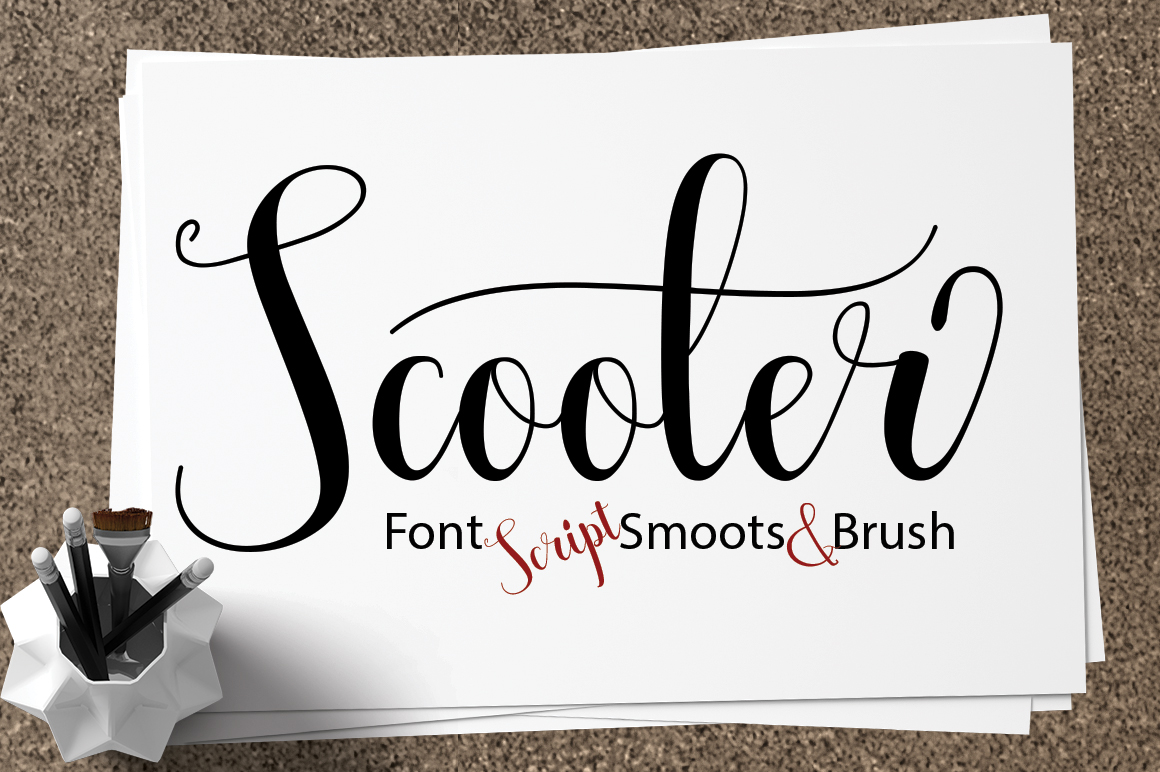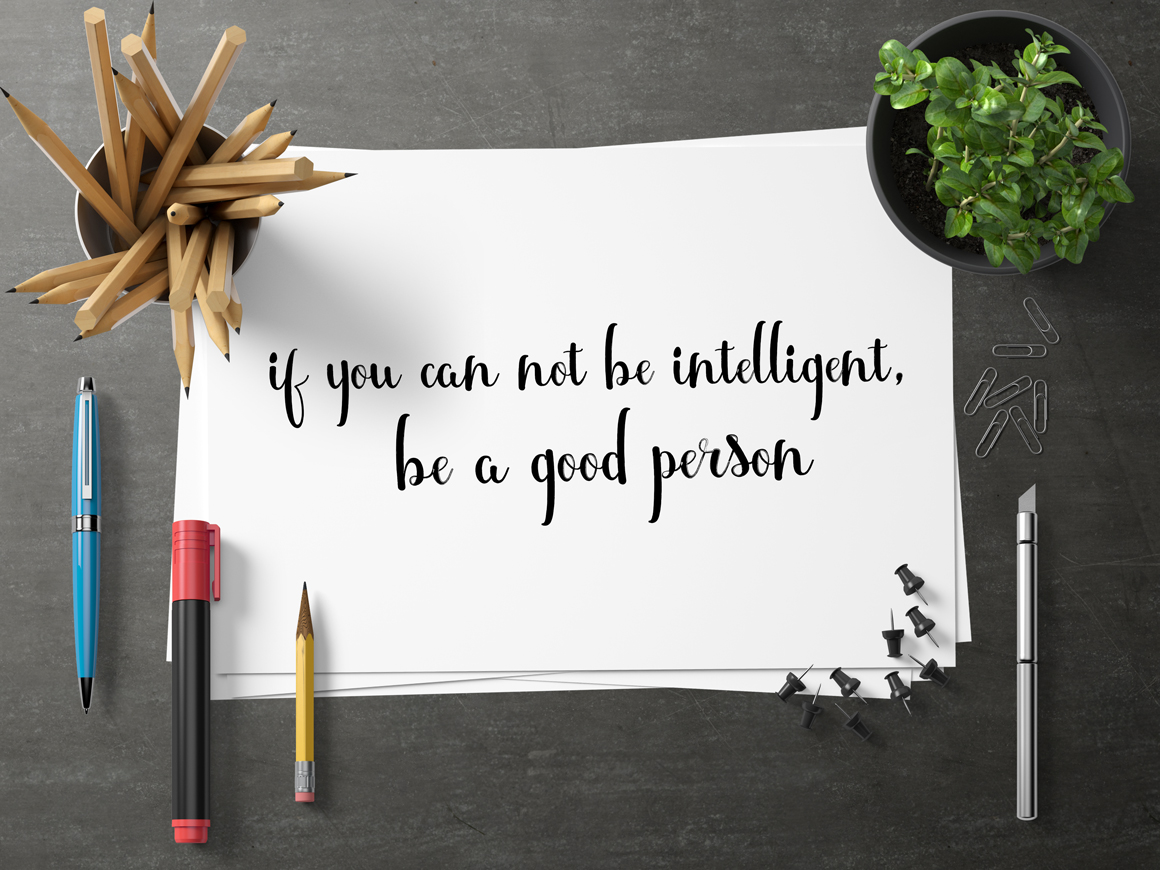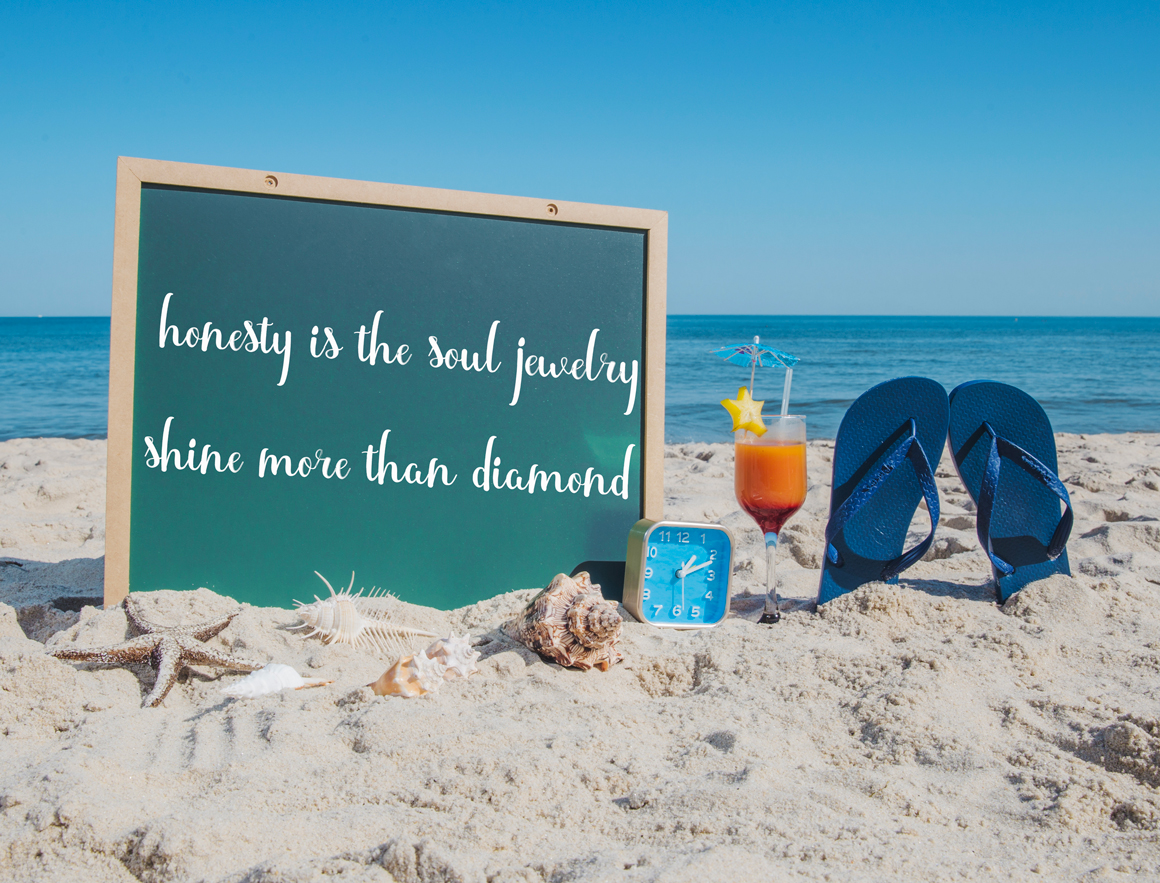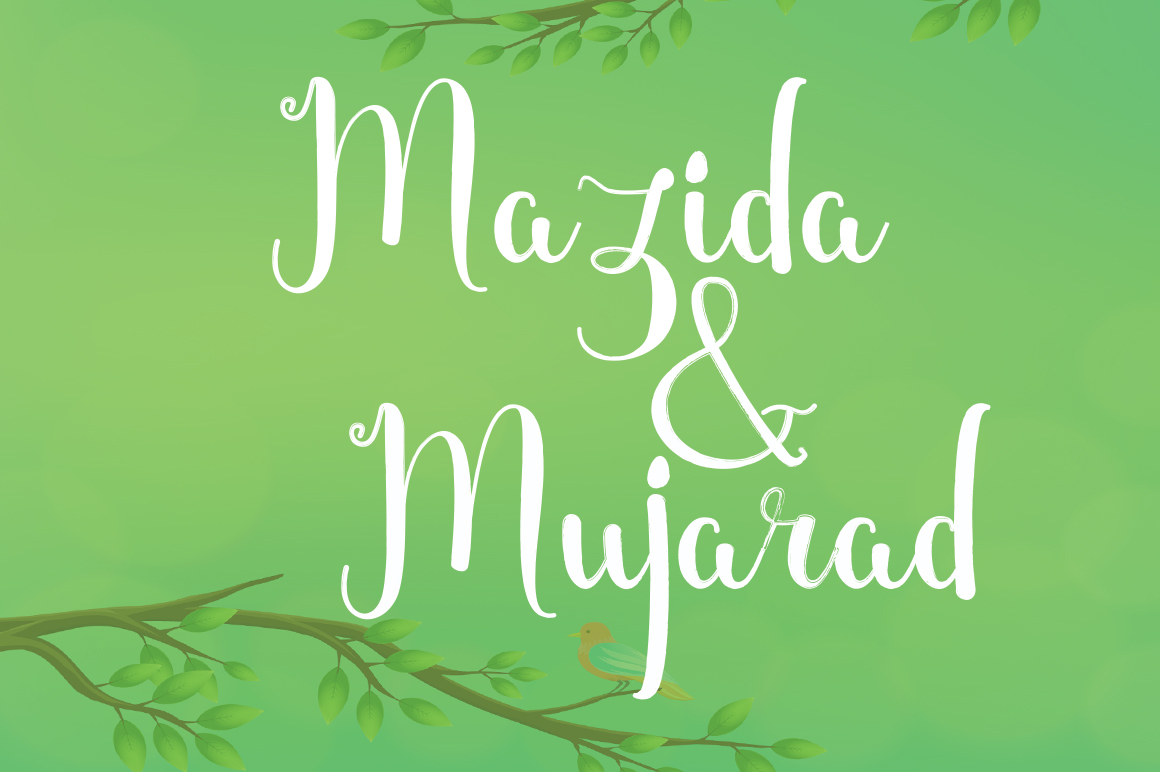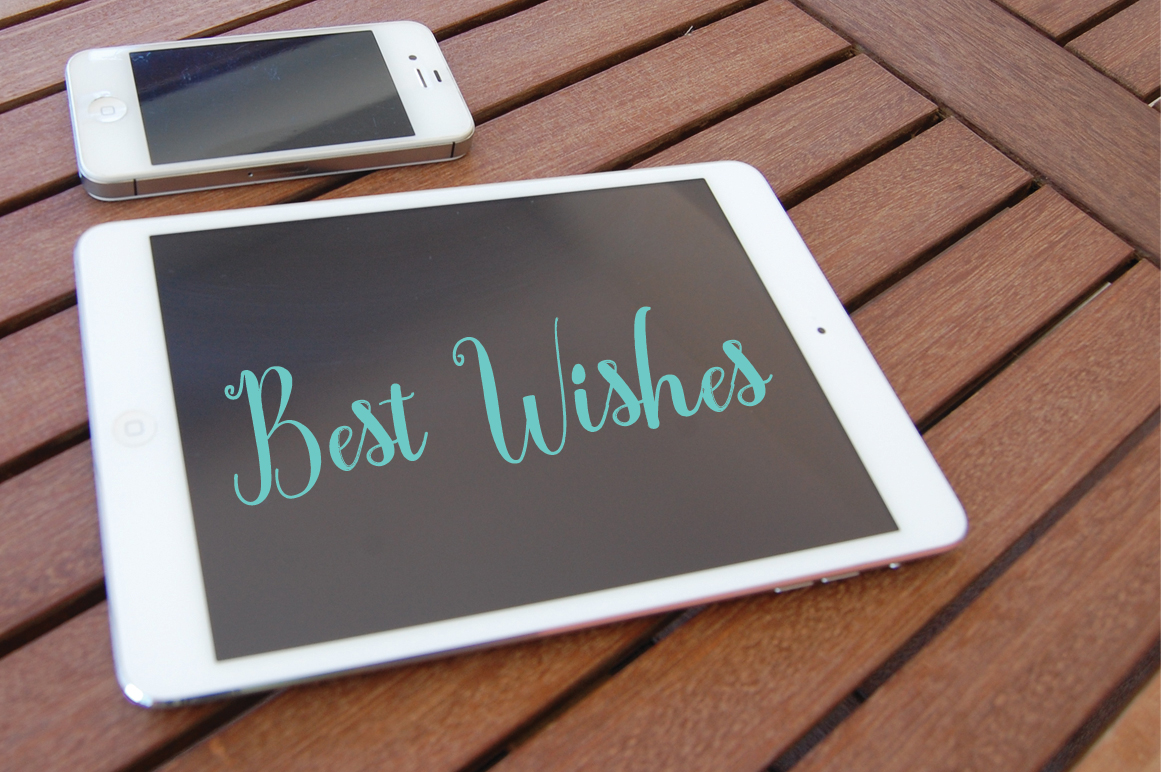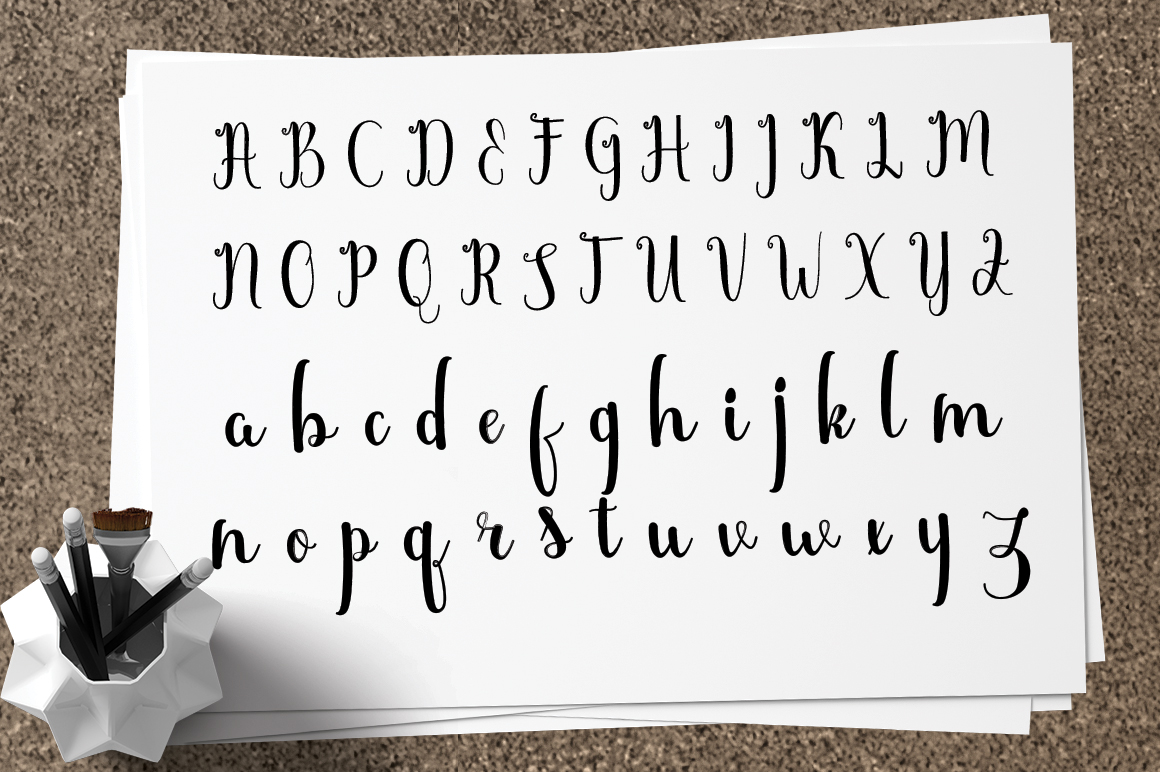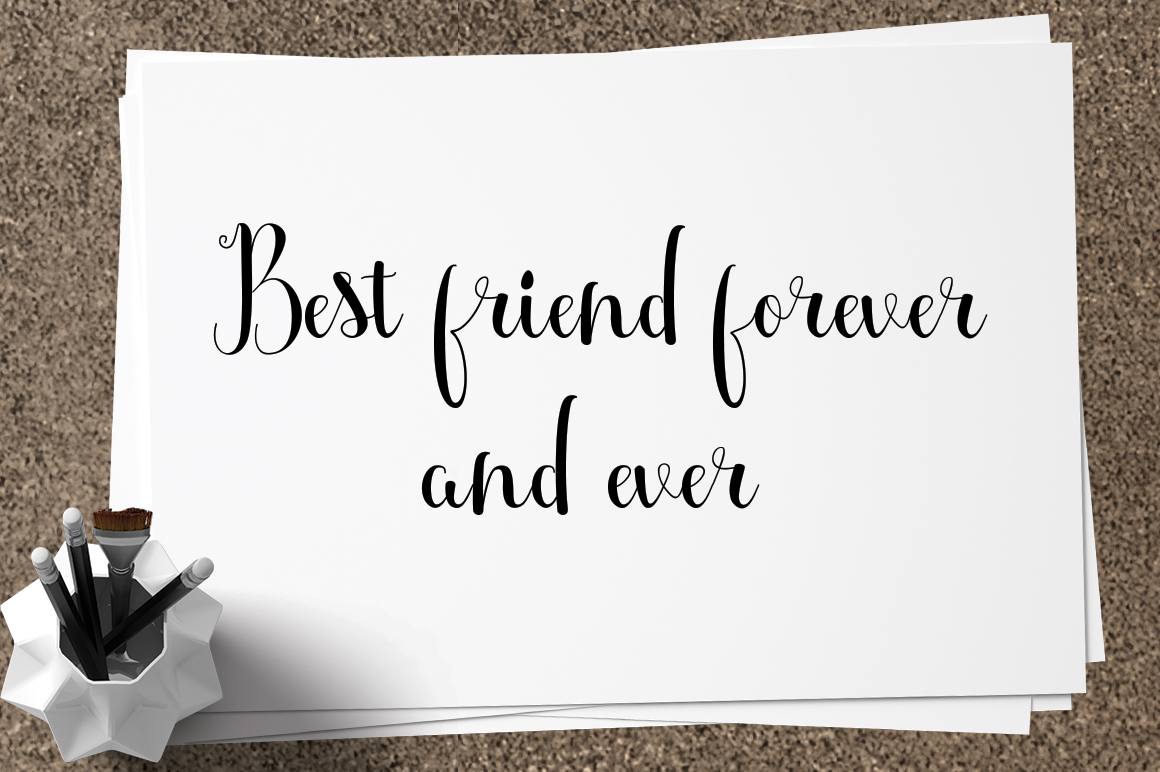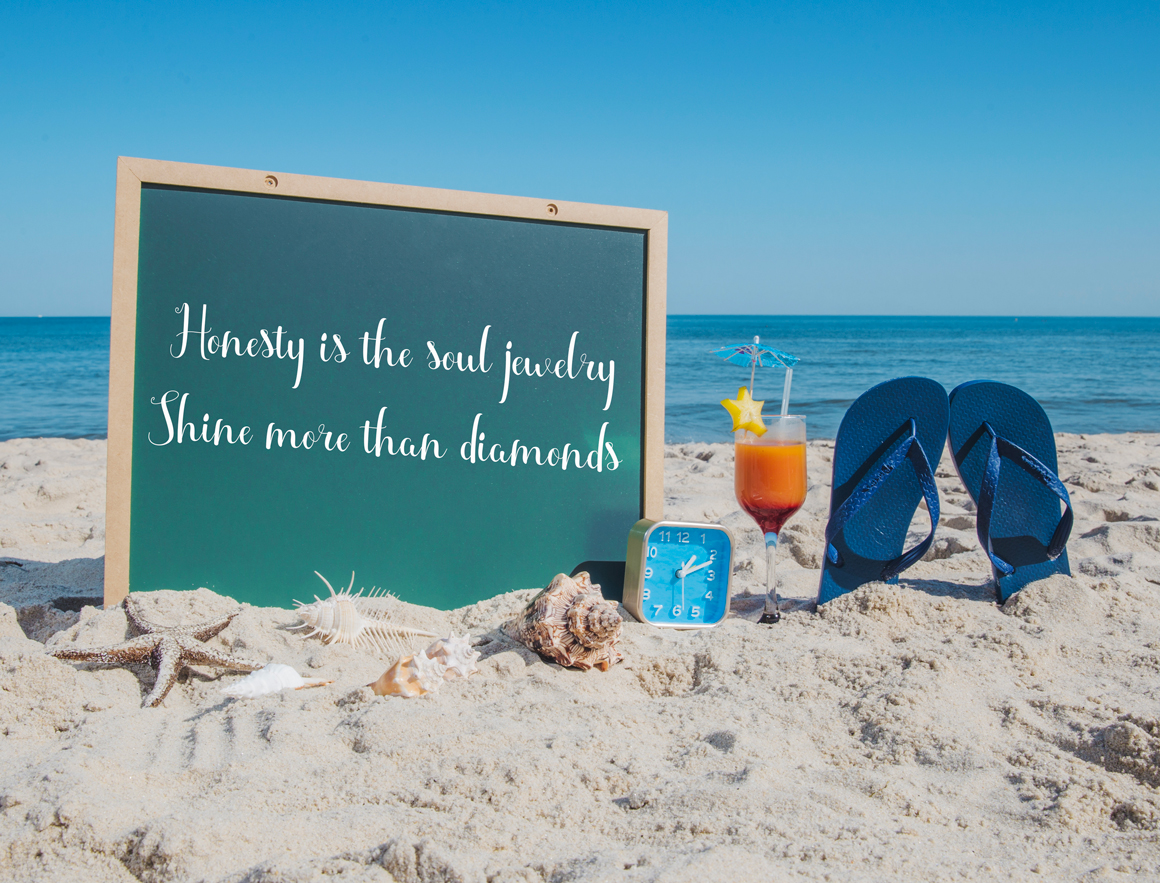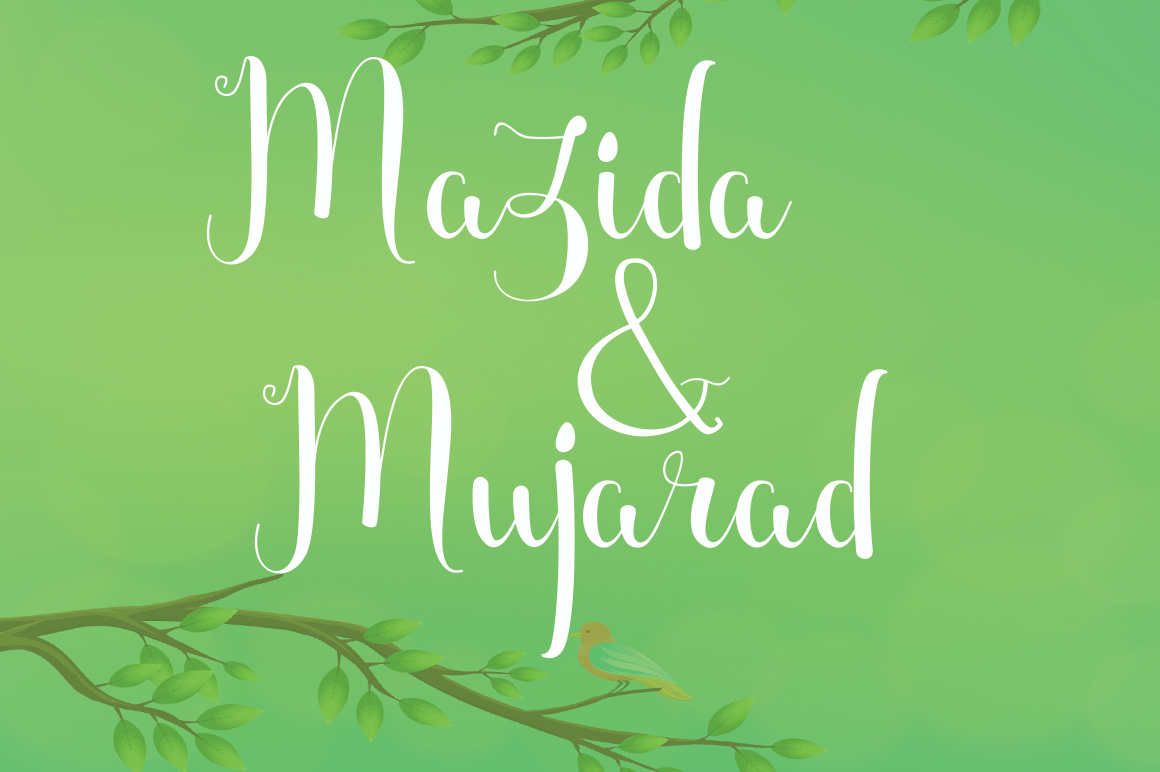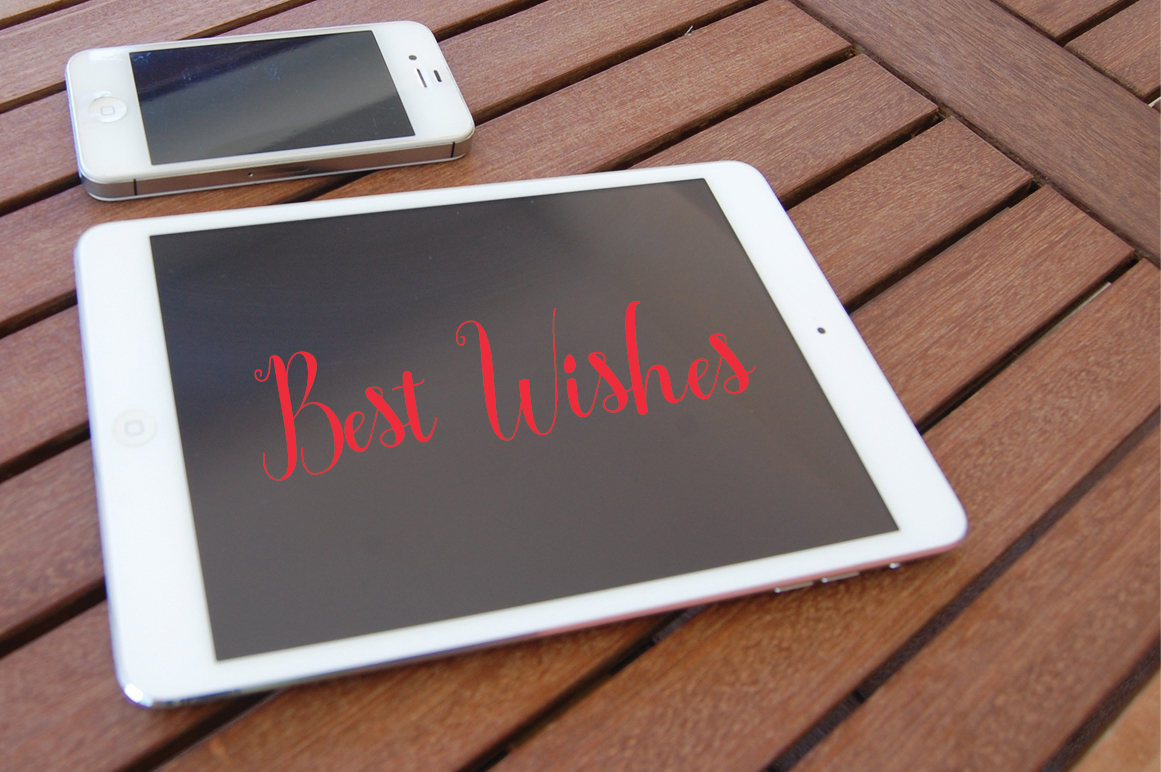
HomeScript FontsScooter Font Script Fonts Scooter Font FacebookXPinterestWhatsApp Scooter Font Poster 2 Scooter Font Poster 3 Scooter Font Poster 4 Scooter Font Poster 5 Scooter Font Poster 6 Scooter Font Poster 7 Scooter Font Poster 8 Scooter Font Poster 9 Scooter Font Poster 10 Scooter Font Poster 11 Scooter Font Poster 12 Scooter Font Poster 13 Scooter Font Poster 14 About Scooter Font Scooter is a modern calligraphy typeface that was designed completely by hand. DOWNLOAD NOW People also explored Bottom Rock Font Monstere Font Malligoe Font Aughlesia Font Gaymer Font Dangellio Font Gardenies Font Dear Honey Font Victorious Font 306 0 TagsScooter Font Previous articleKartina Script FontNext articleBalistroke Font LEAVE A REPLY Cancel reply Comment: Please enter your comment! Name:* Please enter your name here Email:* You have entered an incorrect email address! Please enter your email address here Website: Save my name, email, and website in this browser for the next time I comment. Personal Use Free Christmas Diary Personal Use Free Read more about this font Adventure Font Personal Use Free Read more about this font Predators Personal Use Free Read more about this font Bulky Personal Use Free Read more about this font BLOG Where to Buy American Fonts Online in 2024 Where to Buy American Fonts Online: The Ultimate Guide for 2024 Looking for the perfect American font to elevate your design projects? You're in the... How to Cut Any Font on Cricut: Convert a Font to SVG (Free) Top 7 Google Fonts Alternatives for Faster and Privacy-Friendly Web Design (2025) Transform Your Website: Elevate Your Typography with 7 Best Web Font Generators